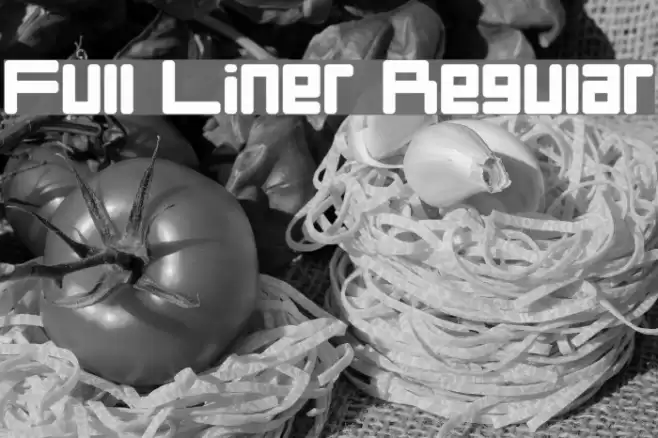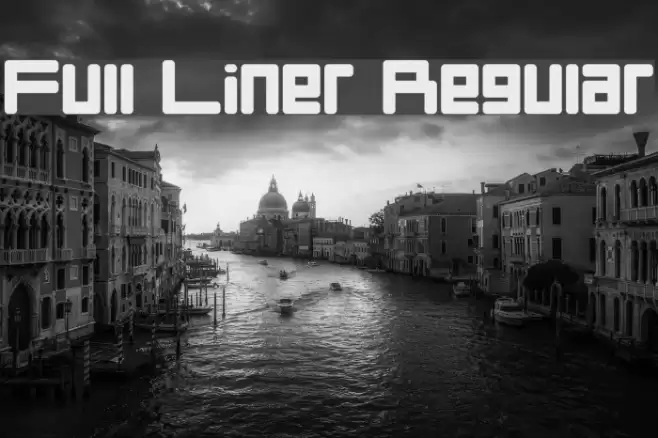
Full Liner Regular Font
Full Liner Regular Description
This font features a bold, geometric design with a modern and futuristic aesthetic. The characters are constructed with thick, uniform strokes, creating a strong visual impact. The rounded edges and consistent line thickness give it a cohesive and structured appearance. The uppercase and lowercase letters maintain a similar width, enhancing readability. The numerals and special characters are designed to match the overall style, ensuring a harmonious look across all text. This font's unique style makes it suitable for projects that require a contemporary and eye-catching typeface.
A bold, geometric font with a modern and futuristic design from Uncategorized fonts.
- Proposed Projects: Ideal for technology branding, modern posters, digital interfaces, and futuristic-themed designs.